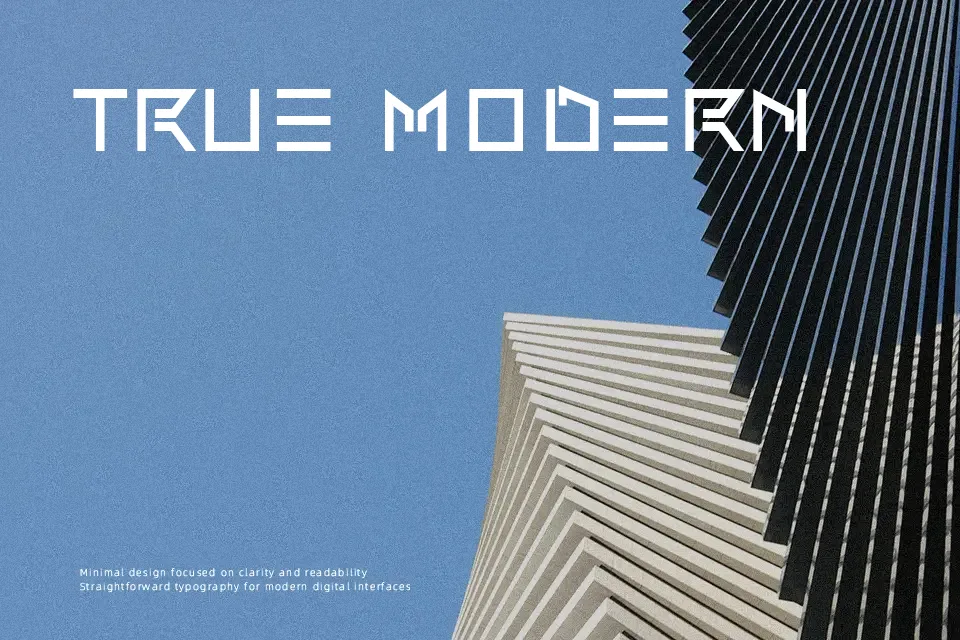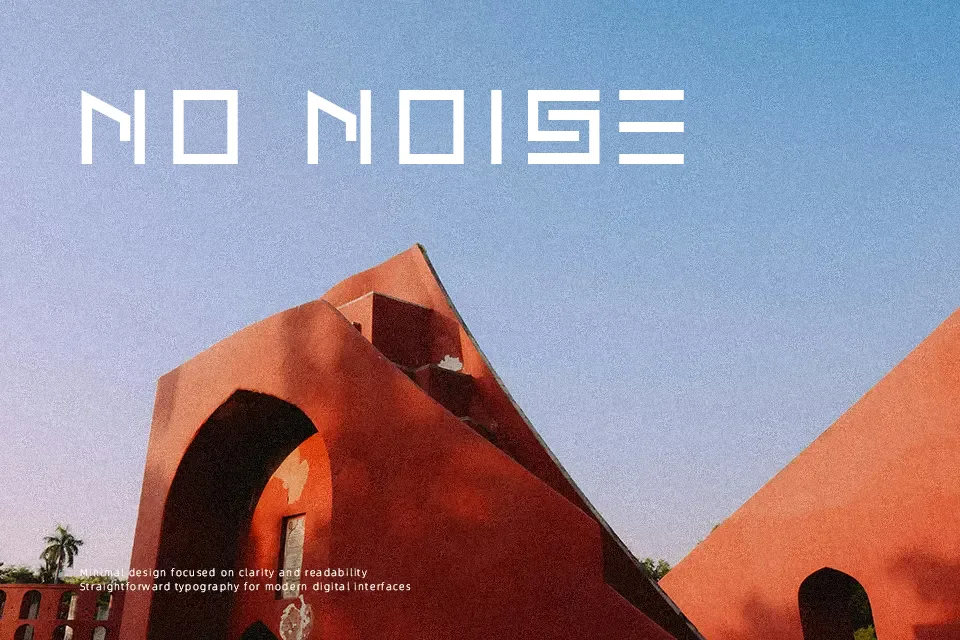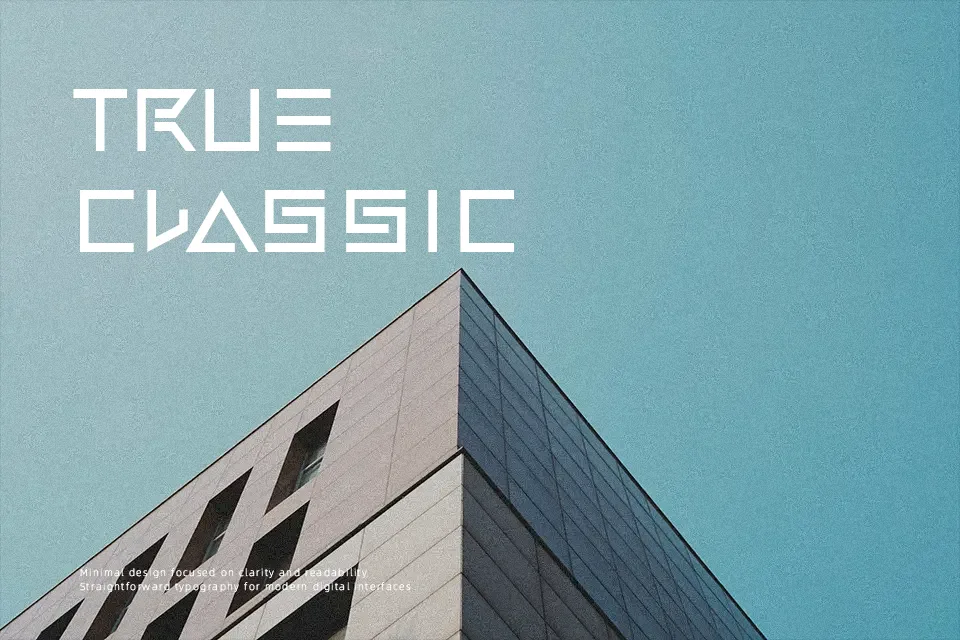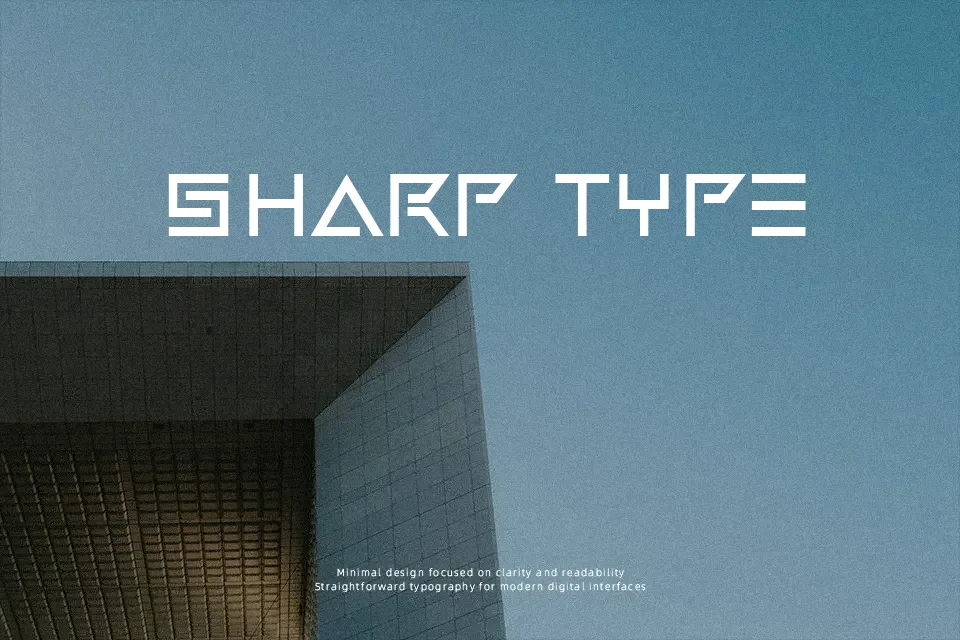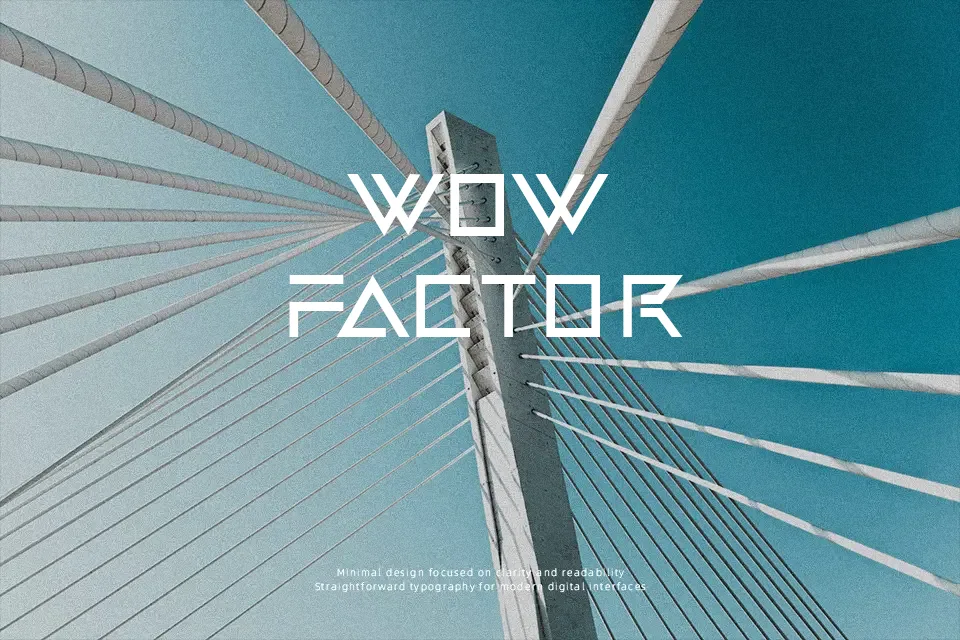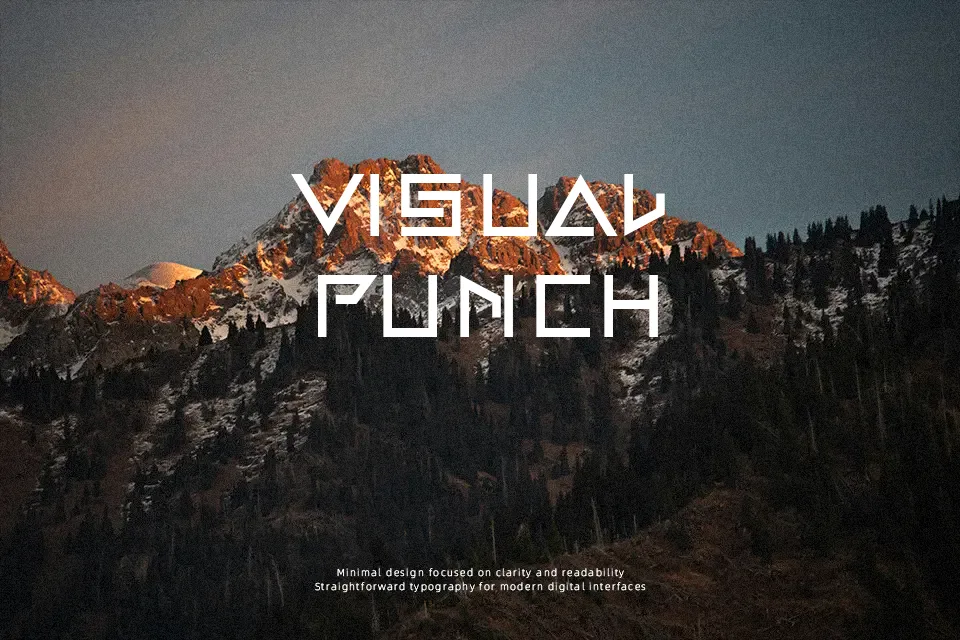
Testament Font
Testament Font commands immediate attention with its broad, expanded letterforms and minimalist geometric construction. Uniform stroke weights and generous horizontal proportions establish a calm, architectural rhythm across wide display settings. The design maintains crisp edge definition and balanced character spacing, ensuring strong legibility in short headlines, identity graphics, and title sequences. However, the extended width and stylized uppercase forms make the typeface less suitable for long paragraphs or dense editorial layouts where reading speed is paramount.
Best For: futuristic title sequences, technology brand identities, modern exhibition posters, wide packaging headers
Not Ideal For: dense editorial paragraphs, mobile interface body copy, technical manuals, formal correspondence
Perfect for branding, headline, and logo, with a clean and display style.